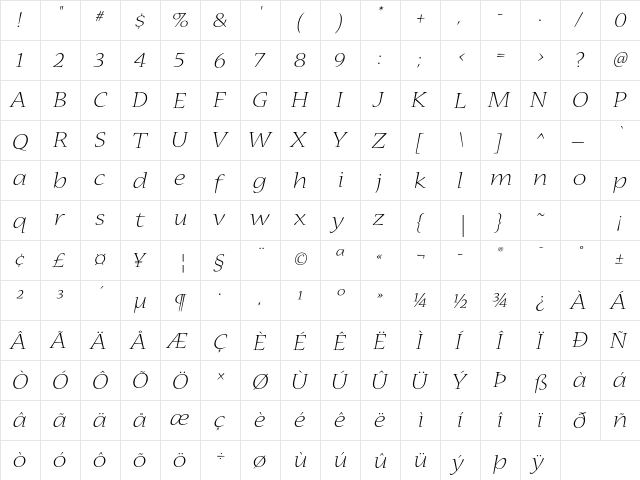
Nueva Std Light Extended Italic Font Preview
| Designer | Carol Twombly |
Design Context for Nueva Std Typeface
Nueva Std takes a measured approach to typography — its balanced proportions and neutral character make it a reliable workhorse for both digital and print work. The dynamic lean of this cut emphasises speed and emphasis in any layout. Its slender proportions lend an understated elegance to any composition.
Pro Tip: Try Nueva Std for annotation and caption copy alongside an upright companion — the contrast in angle creates a dynamic but ordered typographic system.